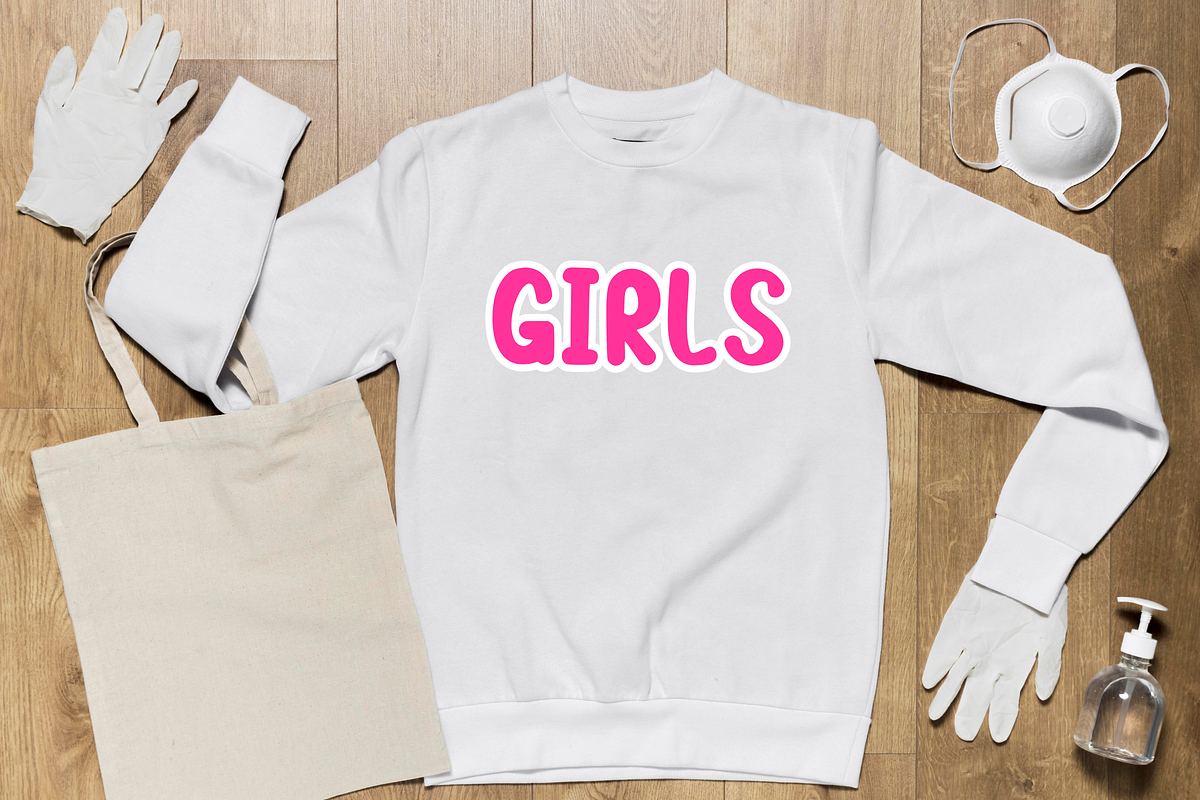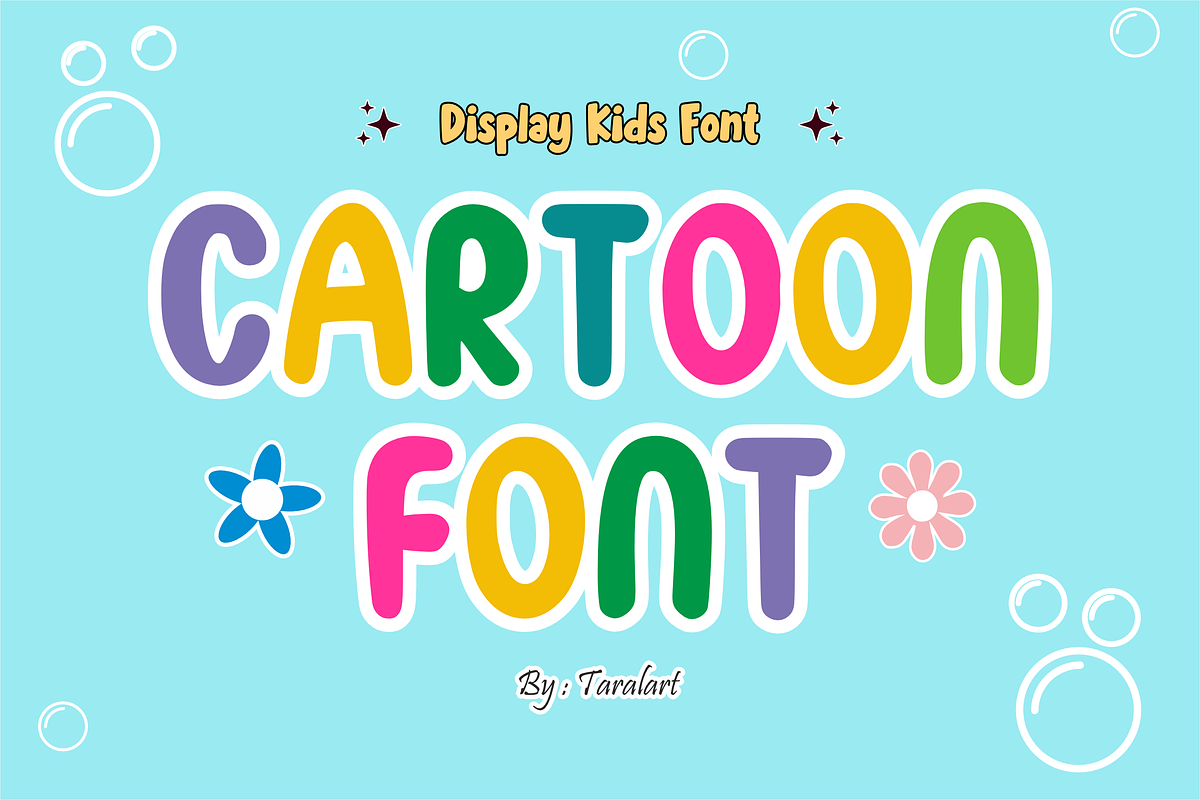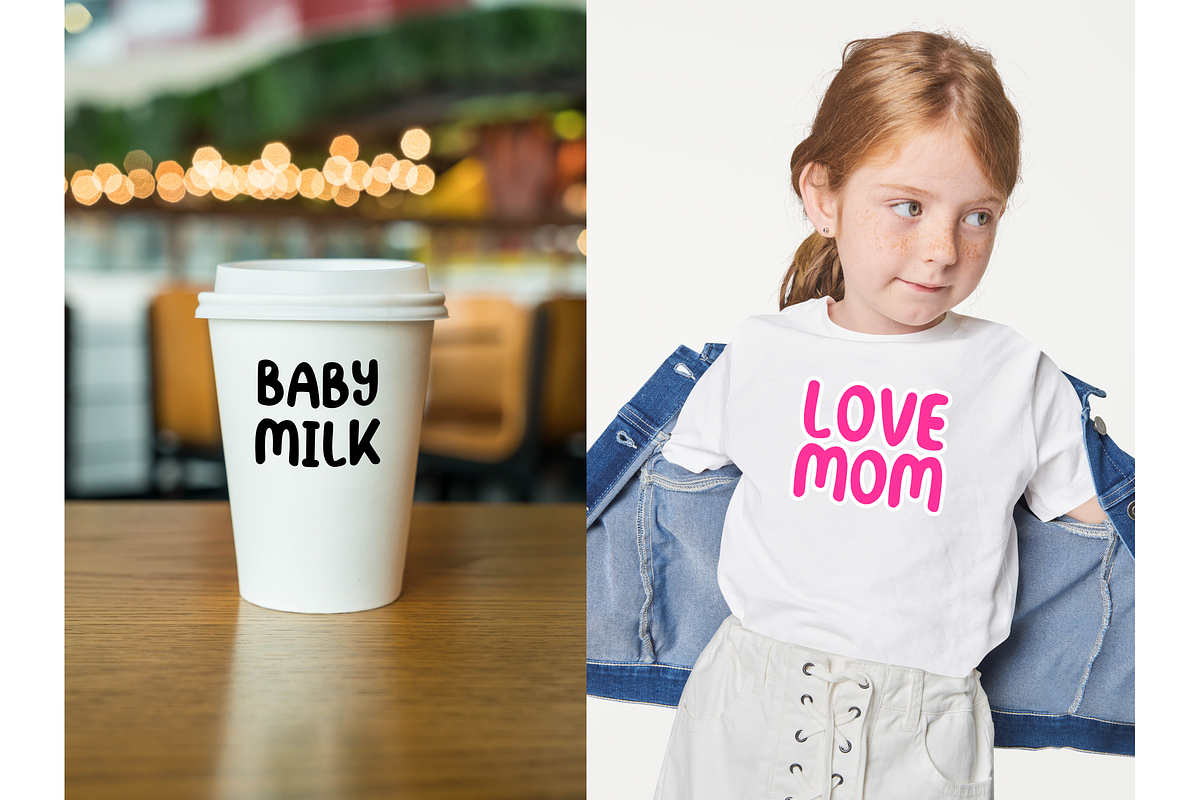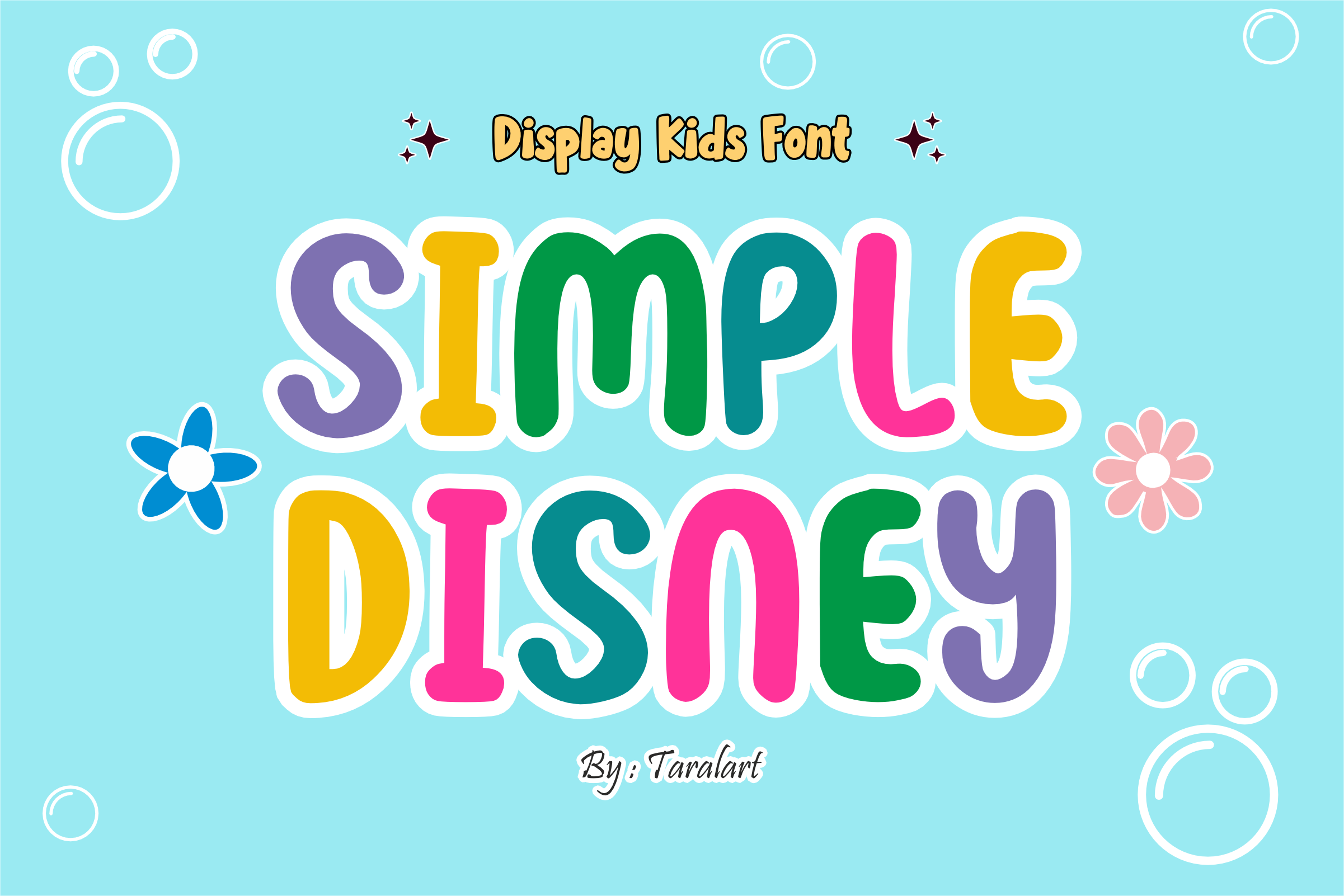
Simple Disney - Kids Display Font
Bring a touch of magic and pure joy to your designs with Simple Disney! This bold, smooth, and wonderfully bouncy display font captures a whimsical, fairytale charm that makes every word feel like a fun adventure. With its clean, friendly letterforms and cheerful personality, it’s the ultimate choice for making children’s crafts, classroom materials, and party decorations look absolutely delightful.
Perfect for magical theme projects, teacher resources, and trend-focused crafting, Simple Disney perfectly balances a playful cartoon aesthetic with outstanding legibility. It is highly versatile, exceptionally smooth for cutting tools, and fully optimized for flawless performance across premium digital software and professional print setups.
All-Caps Character Set (Chunky, playful uppercase letters)
Numbers & Basic Punctuation (Essential, simple symbols included)
Magical Theme Parties, Birthday Invitations, & Festive Banners 🎈
Teacher Resources, Classroom Decor, & Fun Educational Activity Sheets ✏️
Cricut, Silhouette, & DIY Kid Craft Sublimation Projects ✂️
Children's Book Covers, Fairytale Storybooks, & Cute Nursery Wall Art 📚
Custom Die-Cut Stickers, Toddler Apparel Prints, & Playful Merchandise 👕
High-Impact YouTube Thumbnails, Fun Logos, & Animated Social Media Graphics ✨